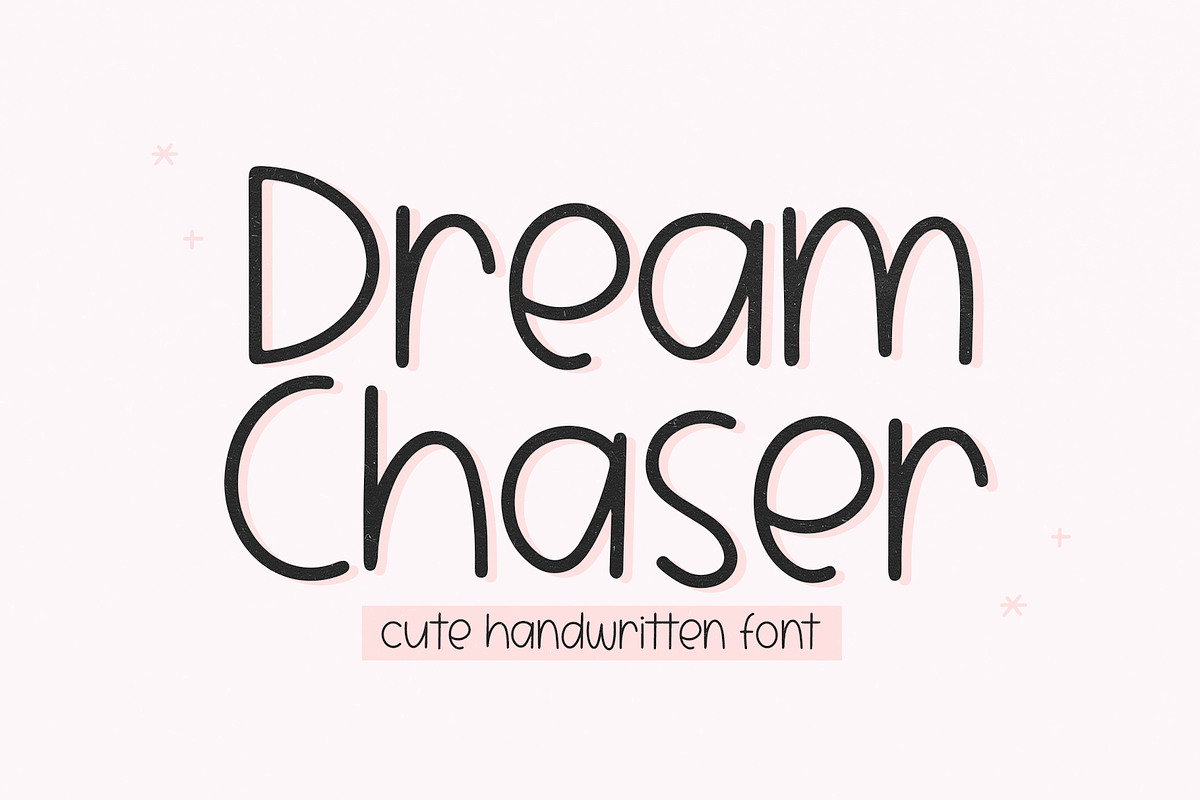
Dream Chaser | Cute Handwritten Font Free Download is a playful and charming handwritten typeface designed to add a personal and whimsical touch to your projects. Perfect for branding, greeting cards, social media graphics, and children's designs, this font radiates warmth and creativity.
With its fun and fluid letterforms, Dream Chaser | Cute Handwritten Font Free Download captures the essence of hand-drawn lettering with a modern twist. Whether you're creating a whimsical brand, a cozy invitation, or a heartfelt message, this font adds personality and approachability. Try it out in your next creative project to experience its unique style—then upgrade to a commercial license when you're ready to share it professionally.